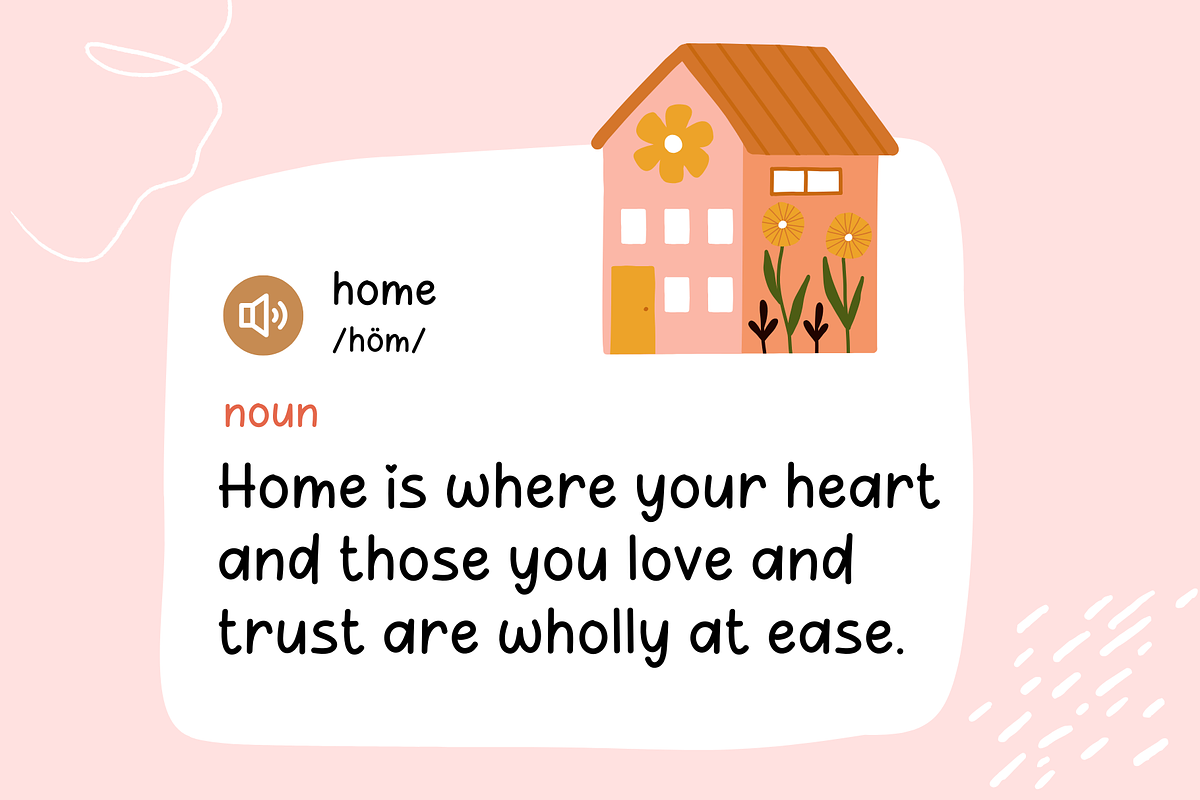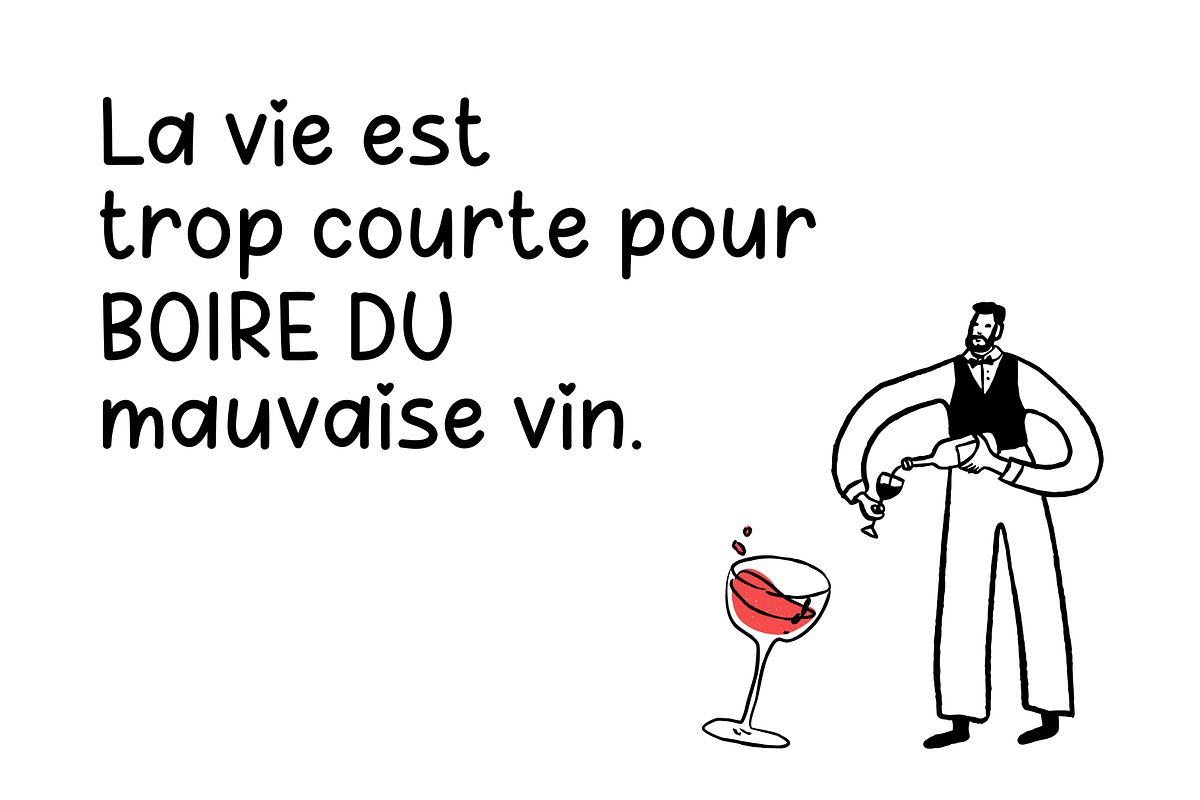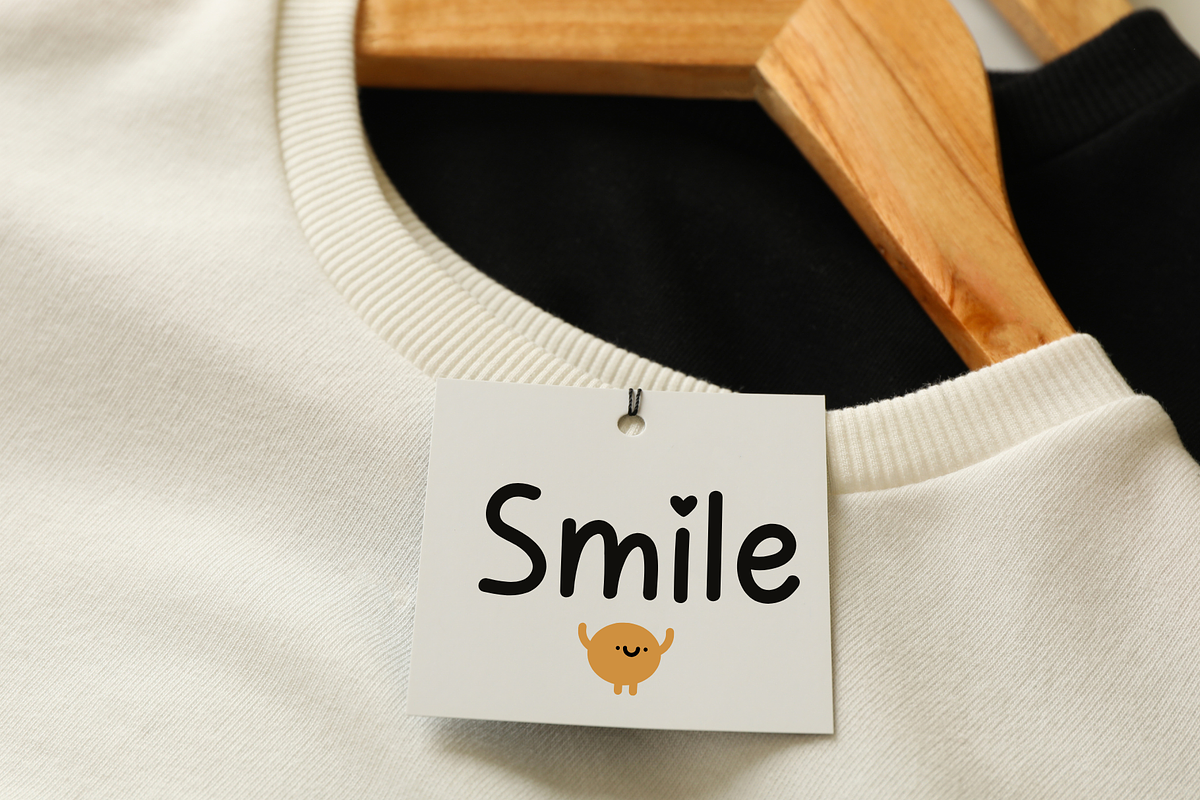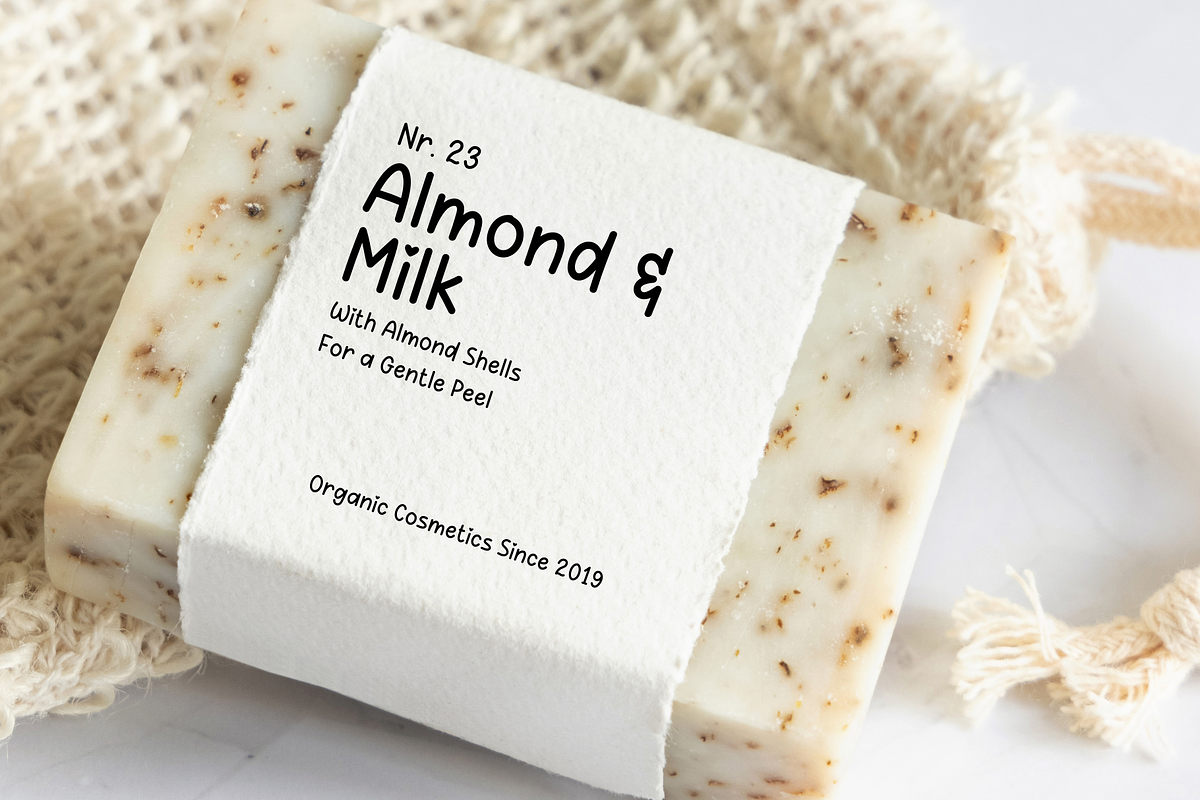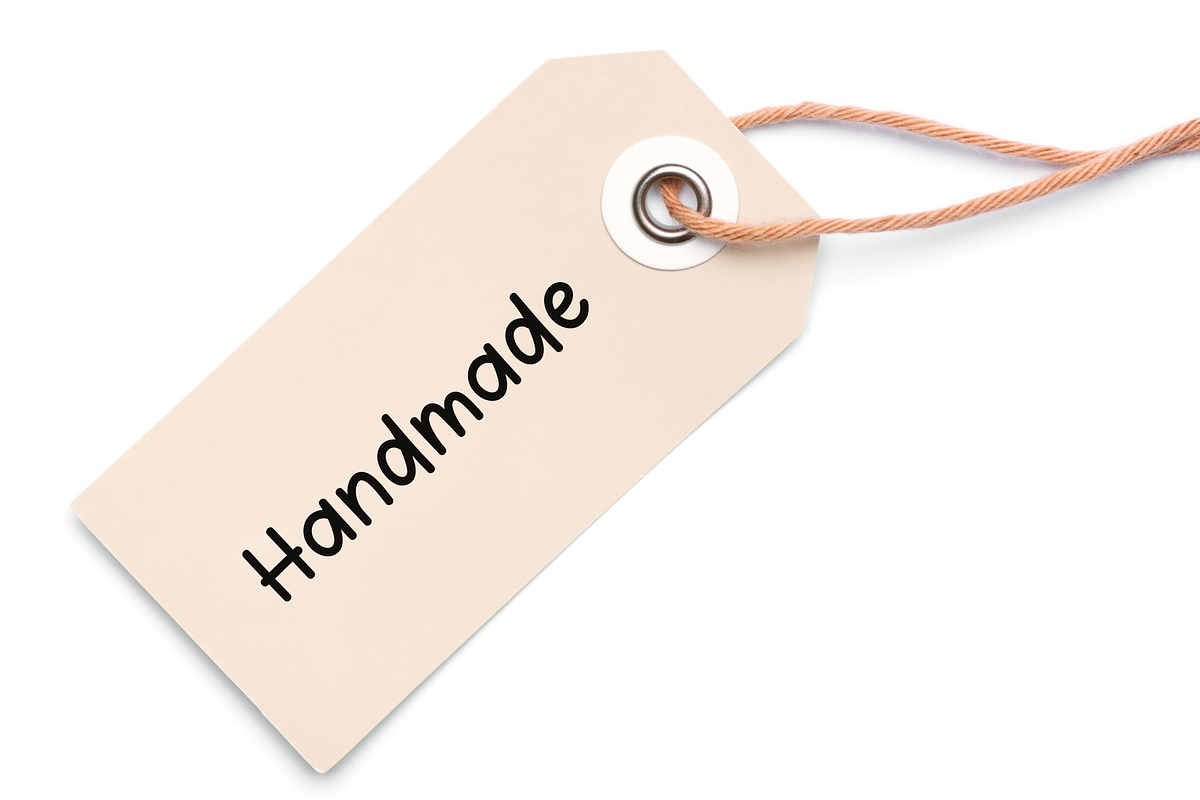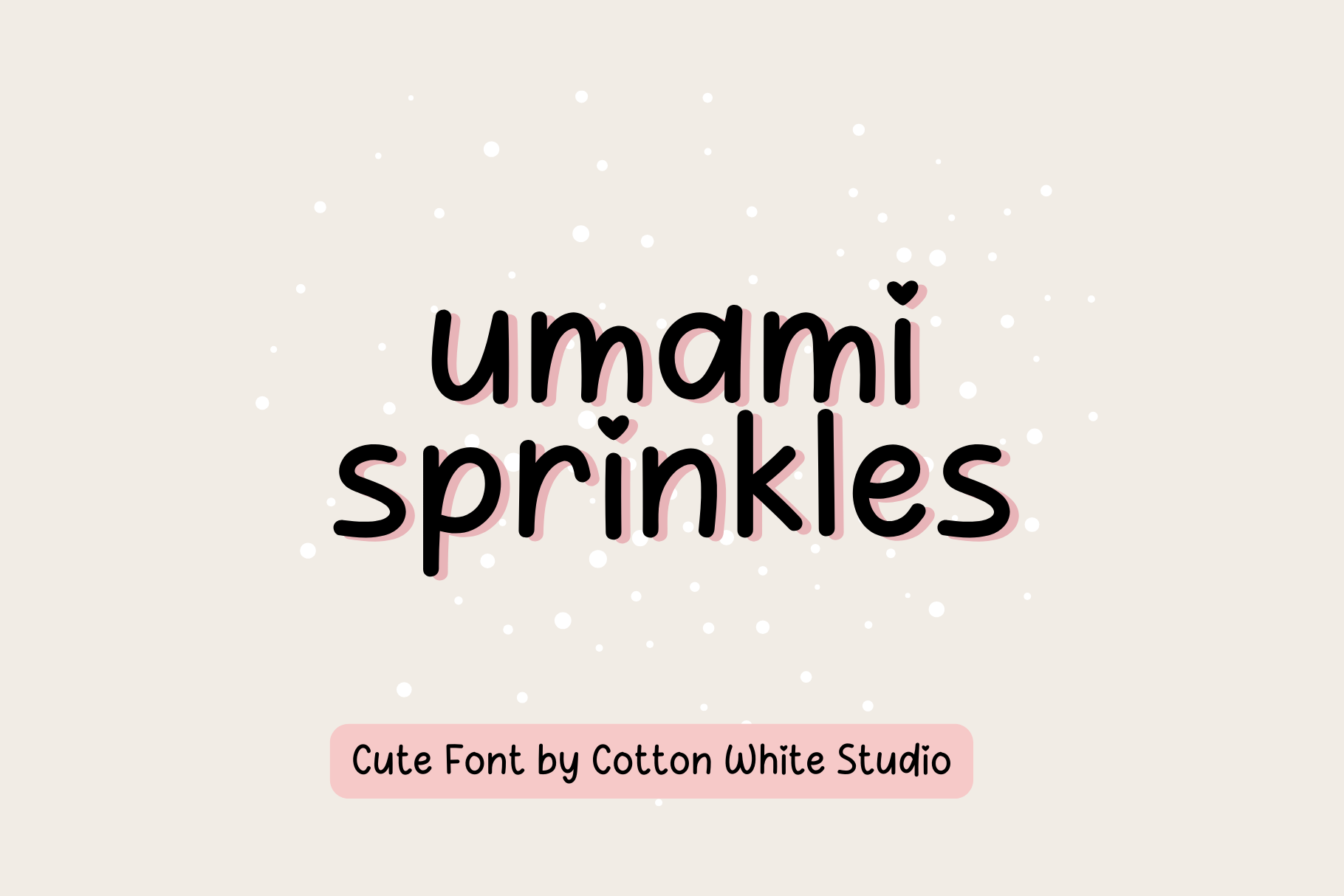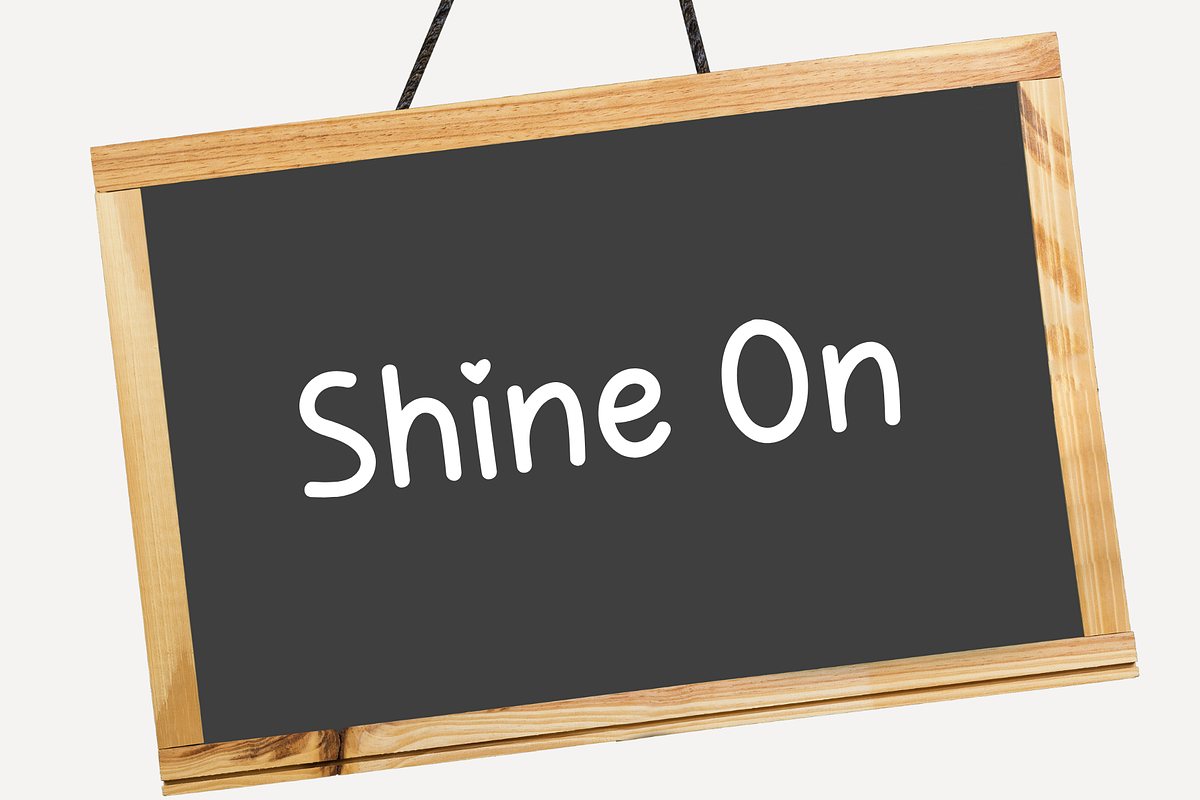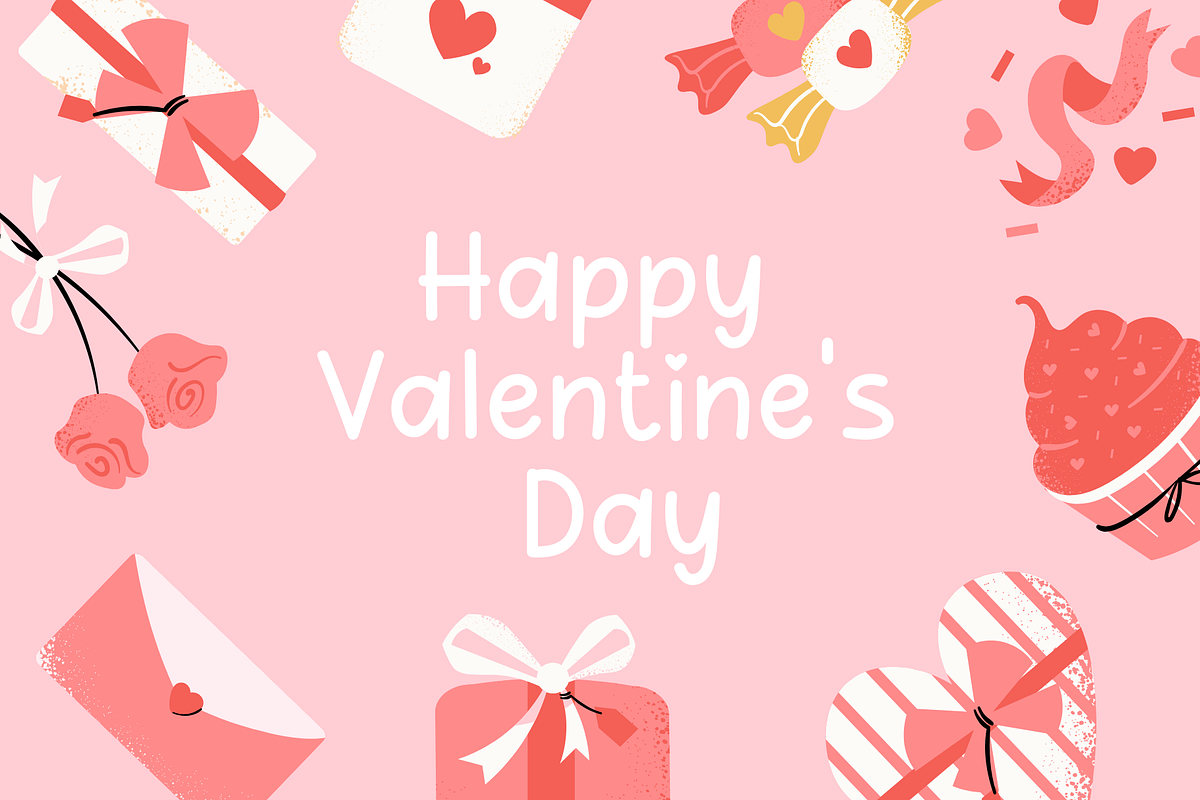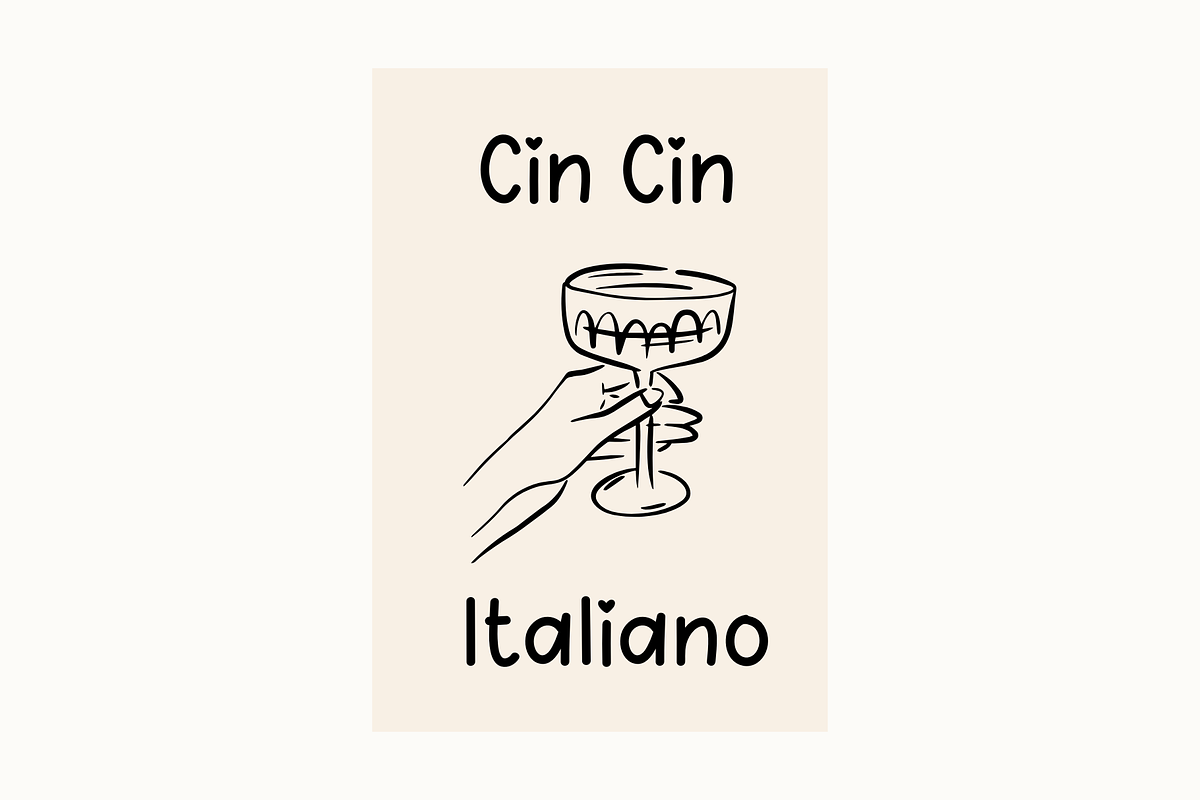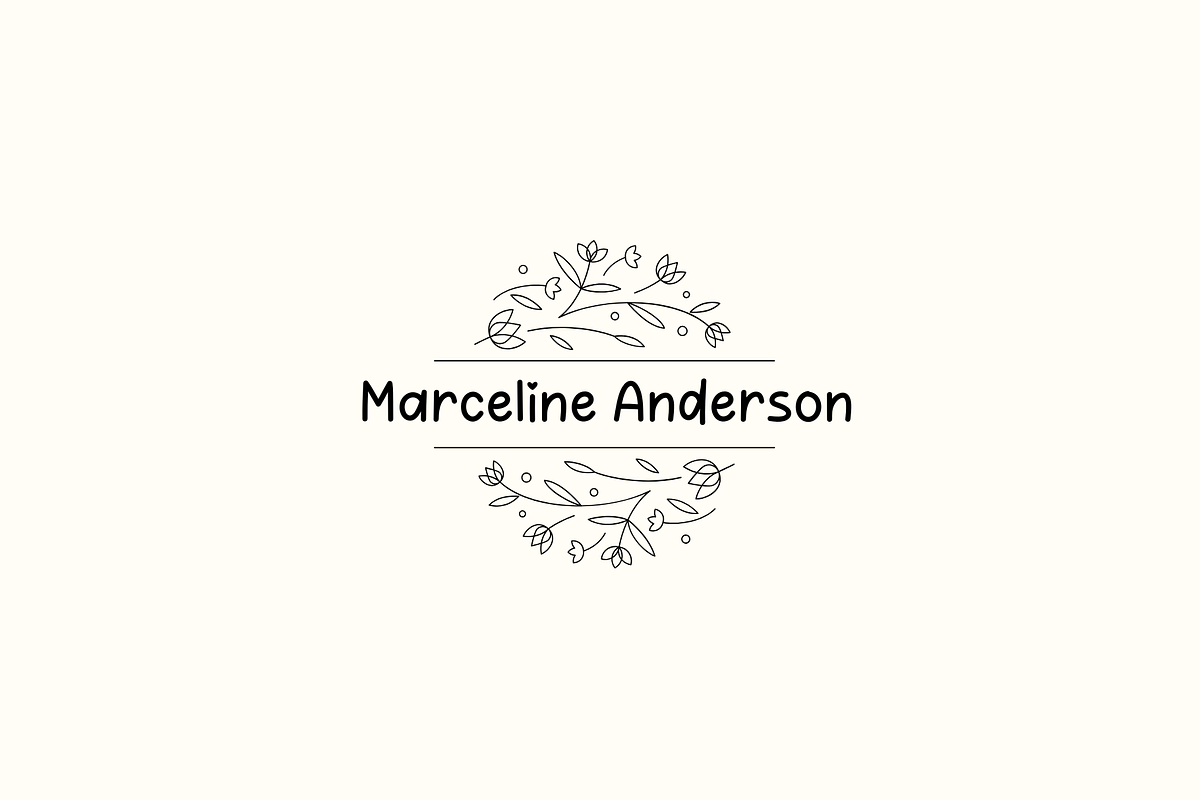
Umami Sprinkles Font
Introducing Umami Sprinkles, the charming handwritten font that effortlessly blends simplicity with cuteness! Clean, easy-to-read letters with a handwritten feel. Perfect for adding a personal, handmade touch to any project, this font is ideal for creating everything from heartfelt invitations to fun branding materials, social media posts, digital journals, and more.
Includes uppercase and lowercase letters, numbers, essential punctuation marks, and multilingual support. ❤️